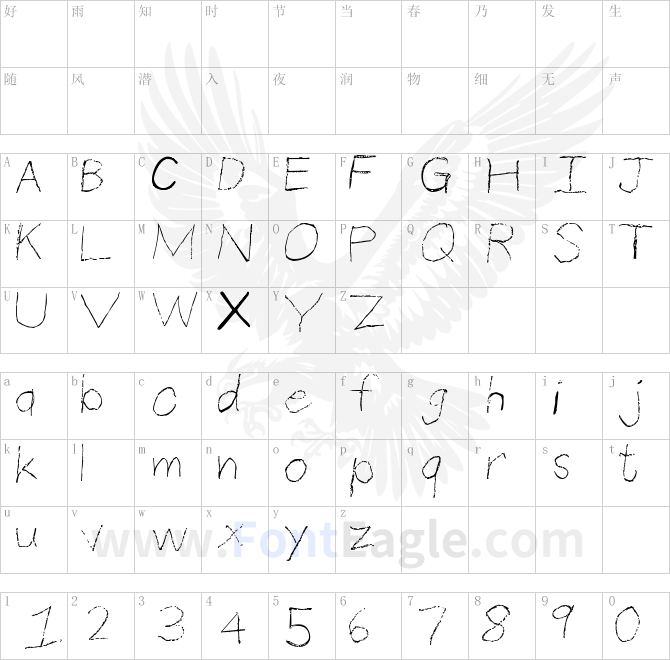
- Font name:Thin Pencil Handwriting
Thin-Pencil-Handwriting is a great font, widely used in graphic design, single-page menu design, poster design and other fields, and is deeply loved by designers.Thin-Pencil-Handwriting download.